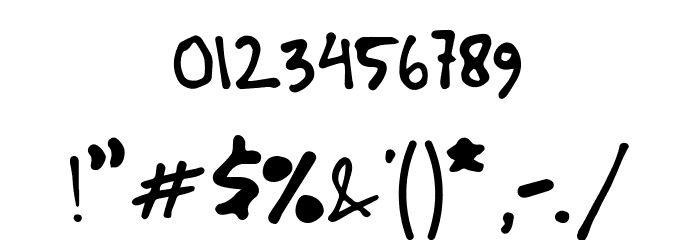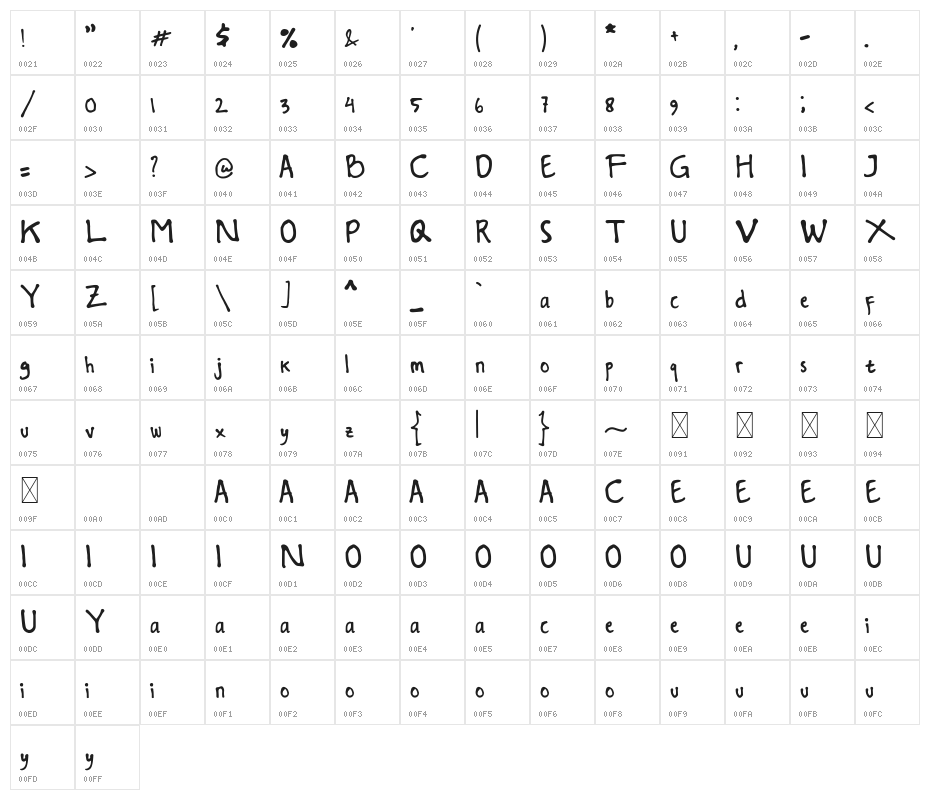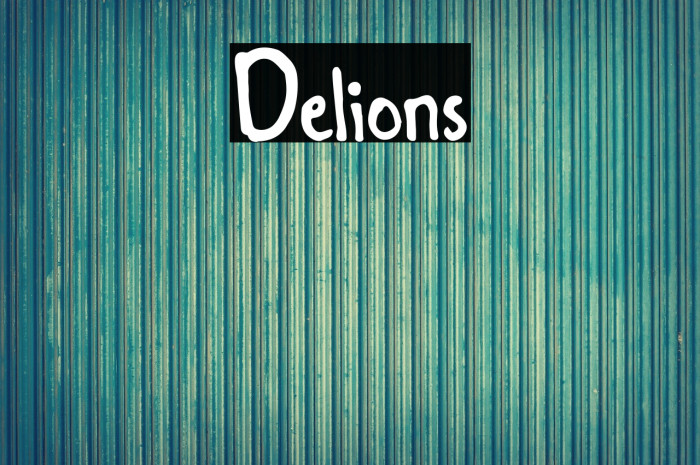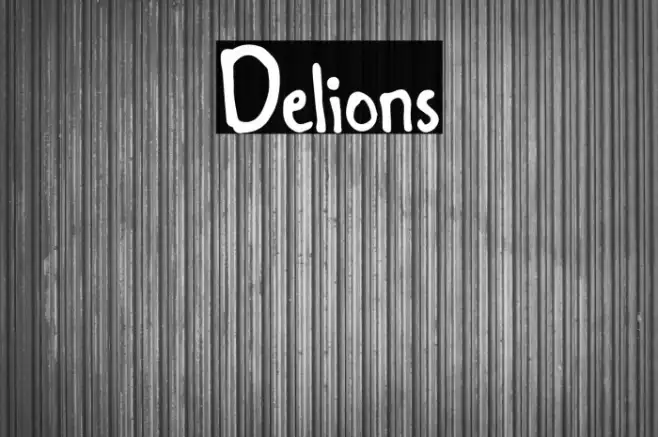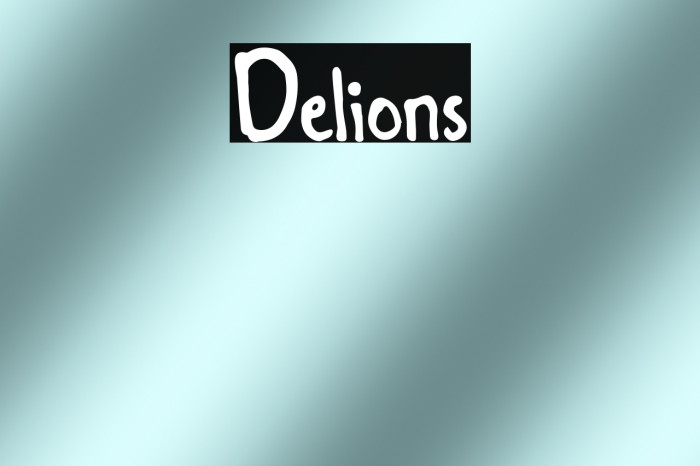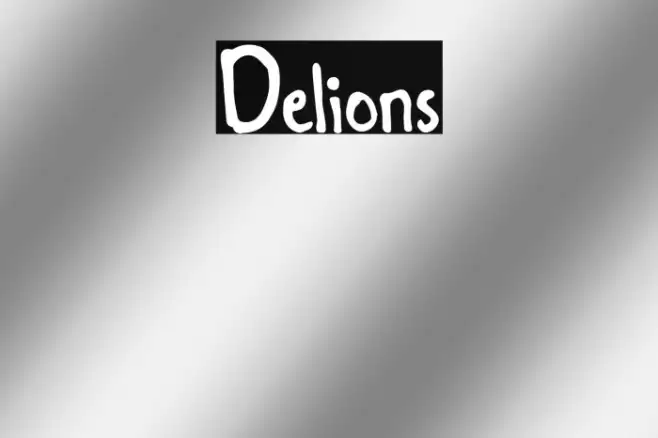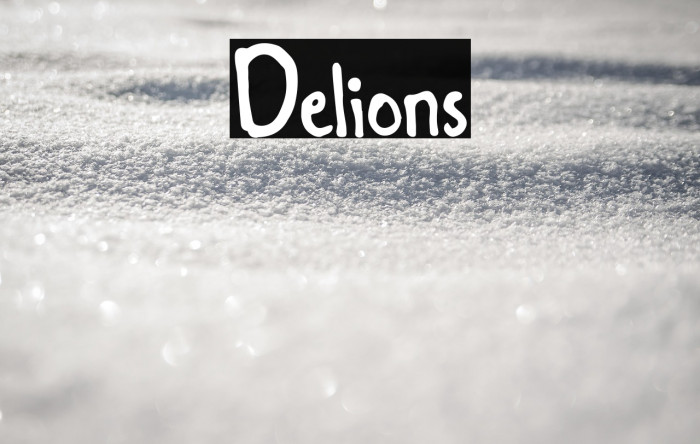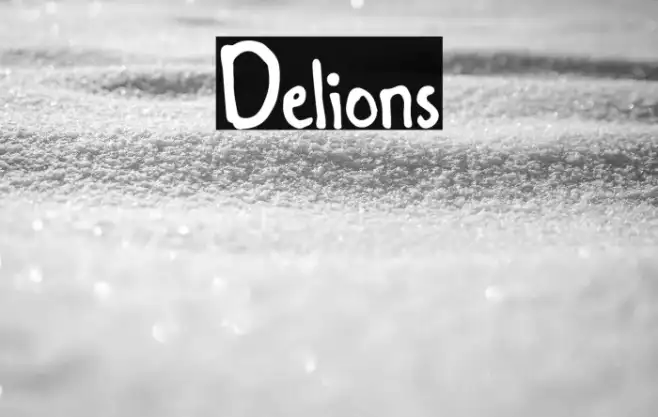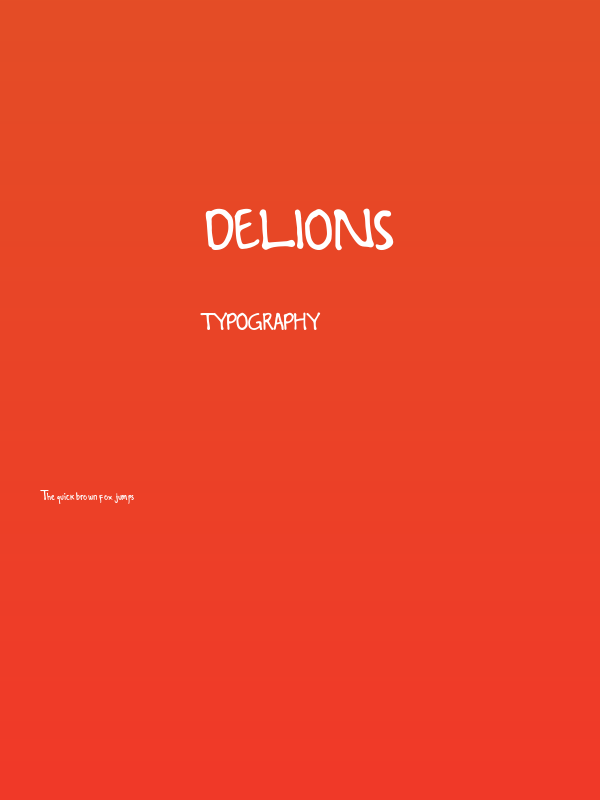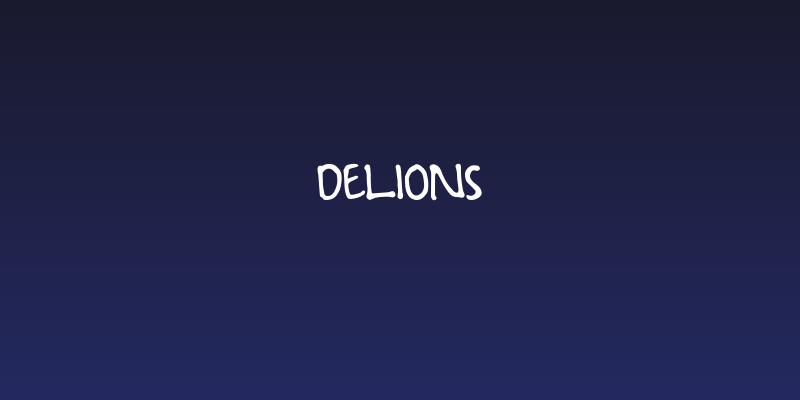
Delions Font
Delions Description
This font features a playful and informal handwritten style, characterized by its irregular strokes and casual appearance. The uppercase and lowercase letters maintain a consistent flow, with slightly uneven baselines that add to its charm. The numerals and special characters follow the same whimsical design, making the font suitable for creative and informal projects. The strokes are moderately thick, providing a medium contrast that enhances readability while maintaining a relaxed aesthetic. This font is ideal for projects that require a personal touch, such as invitations, greeting cards, or playful branding.
| Use Case | Invitations, Greeting cards, Playful branding |
| Proposed Projects | Ideal for invitations, greeting cards, playful branding, and creative projects. |